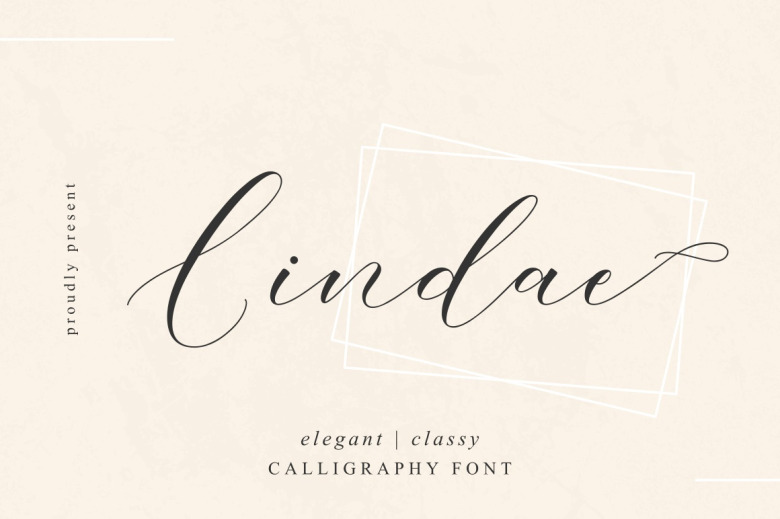
Lindae Font
Lindae is a light and adorable Calligraphy Script font, each letter has been developed from scratch, paying great attention to the small details, … It will give any design project that you want to make a luxury spark! The font is PUA encoded so you can access all of amazing glyphs and ligatures with ease!
Lindae Calligraphy Script Font